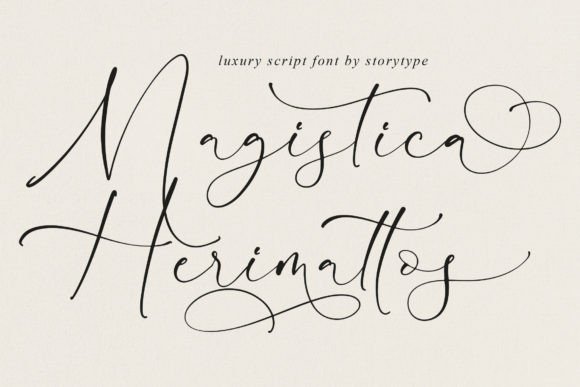
Unveil the Enchanting Elegance of Magistica Herimattos: A Script Font that Captivates and Inspires
In a world saturated with digital information, the art of typography stands as a beacon of distinction, guiding readers through the labyrinth of words and ideas. Introducing Magistica Herimattos, a script font that transcends the boundaries of ordinary typefaces, inviting you on an extraordinary journey of visual enchantment and emotional connection.
Crafted with the utmost care and attention to detail by the Storytype Studio, Magistica Herimattos embodies the essence of luxury and sophistication. Its swirling strokes, delicate curves, and graceful ligatures dance across the page, captivating the eyes and stirring the imagination. This exquisite font is a testament to the transformative power of typography, elevating your designs to new heights of elegance and allure.
Whether you seek to craft an unforgettable logo that exudes timeless sophistication, design a book or movie title that commands attention, or create a fashion brand that radiates exclusivity, Magistica Herimattos is your perfect companion. Its versatility extends far beyond these realms, lending its charm to magazines, clothing designs, lettering projects, and heartfelt quotes, adding a touch of magic to every creative endeavor.
With Magistica Herimattos as your chosen font, you unlock a world of endless possibilities. Its inherent readability, even at smaller sizes, makes it an ideal choice for extended text, ensuring that your website captivates readers from the very first glance. Its distinctive style adds a touch of intrigue and personality to any design, leaving a lasting impression that lingers in the memory.